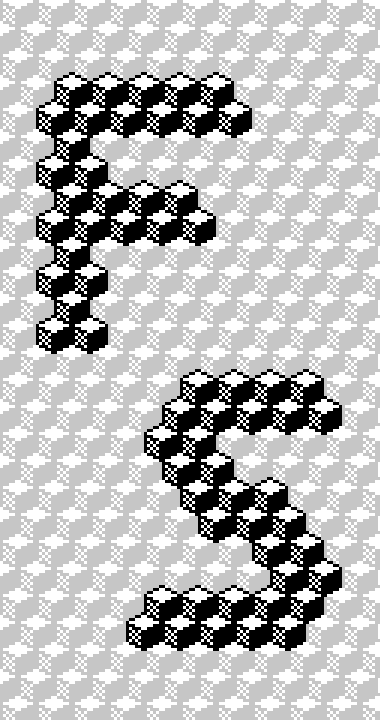
An alphabet worthy of Q*bert; he could successfully complete each letter and number designed here as an individual game board. The punctuation, however, is another story...
I originally designed a set of three small, non-pixelized blocks as a template. However, the small template size caused the top block pattern to "overwrite" parts of the adjoining blocks. This would have forced a tremendous amount of "touch ups" for each glyph, and make the "copy-and-paste" of the pattern too cumbersome. In the end, making them out of pixles was found to be the most efficient.
Wishing to find in a character the symbol of the litle man of that old game!!!
If not... DESIGN IT, RIGHT NOW, AND UPDATE THE FONT!!! PLEASE!!!